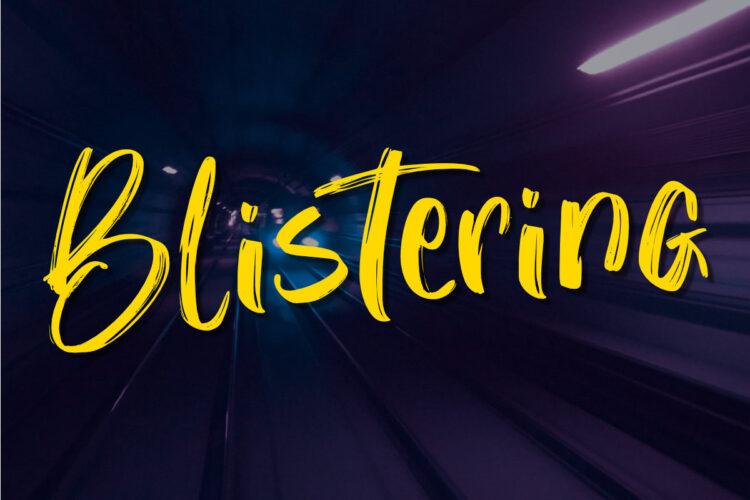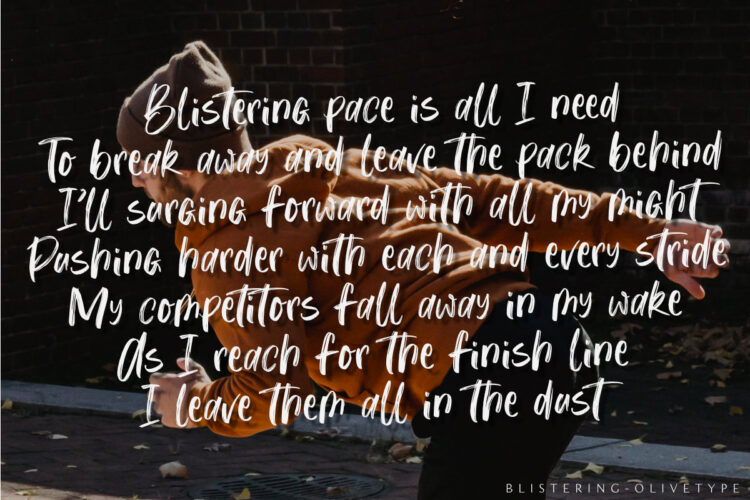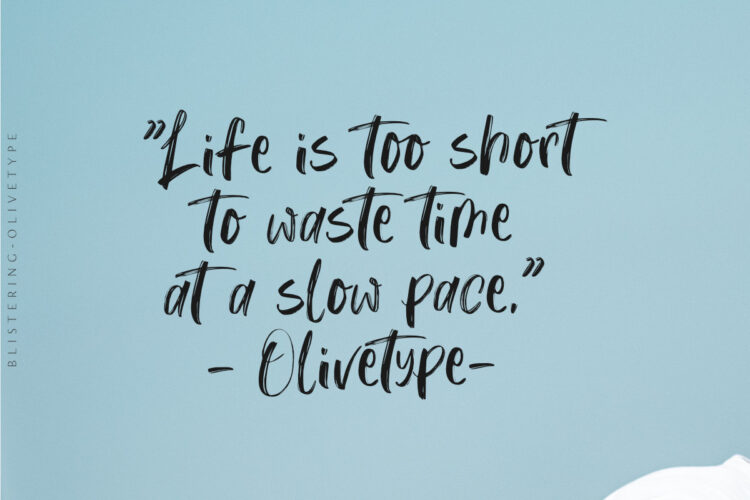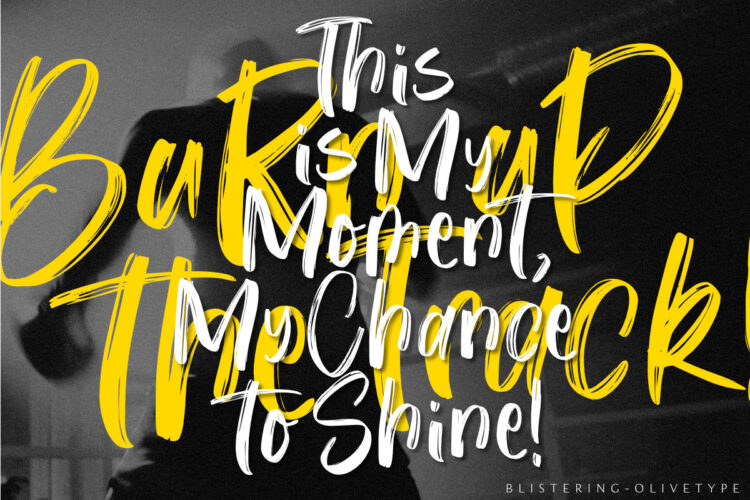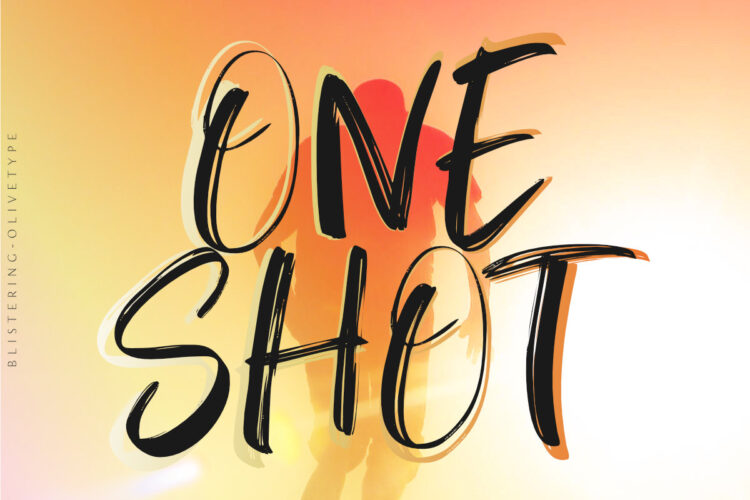
Say hello to Blistering, a cool and versatile brush typeface that can make any design stand out. With its scratchy texture and carefree feel, this font can be used for any design style or project. Whether you need an energetic typeface for logos, a hipster font for a clothing line, or a retro brush font for branding. Blistering has the personality to fit any style.
- Ligatures